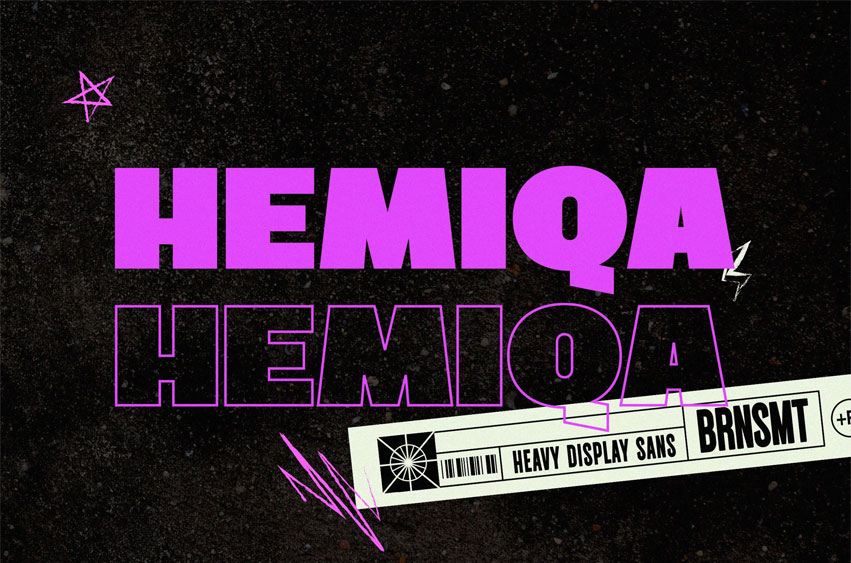
Hemiqa Font is a modern and simple font, best used as a display for headings, logos, branding, magazines, product packaging, and invitations. Hemiqa comes with clean lines and smooth curves giving any project an extra touch of class.